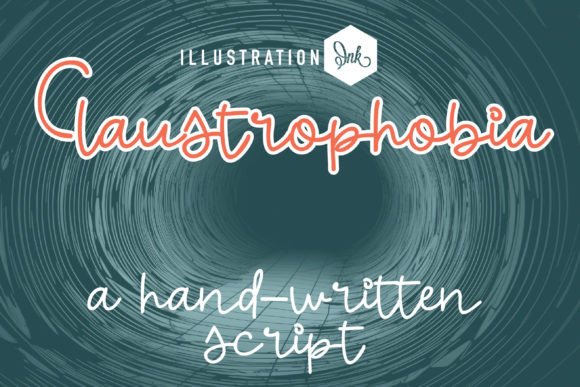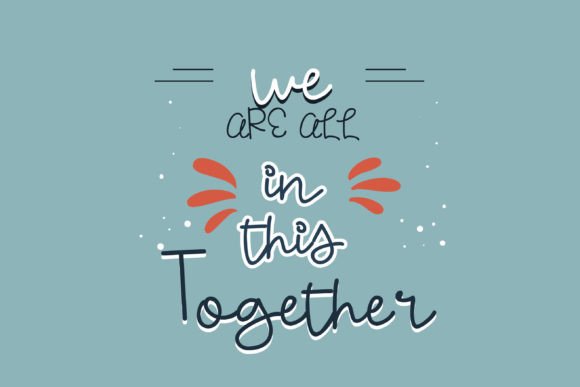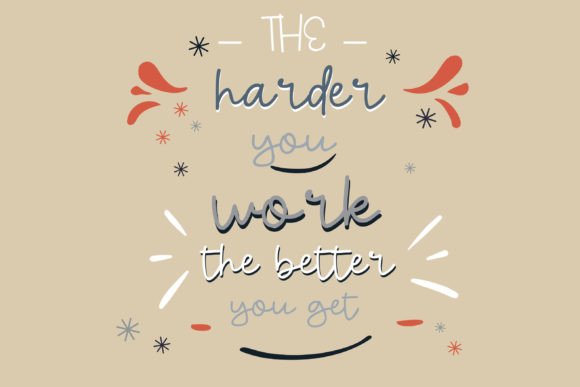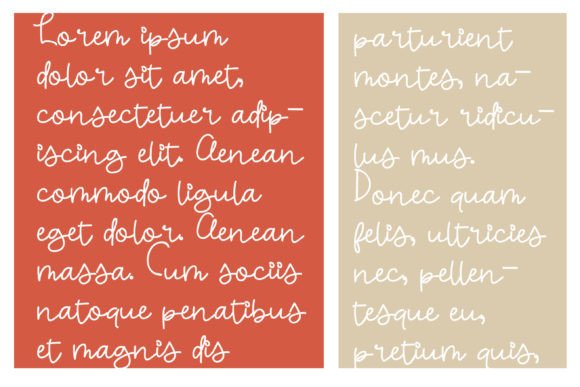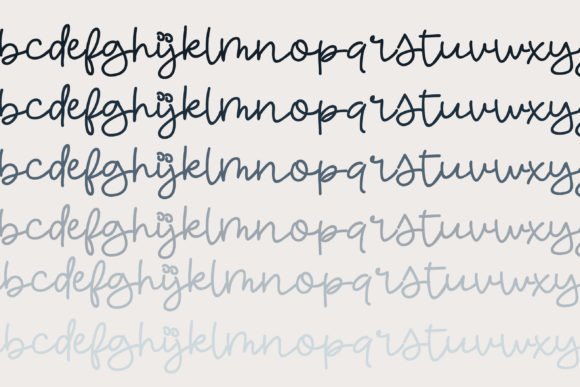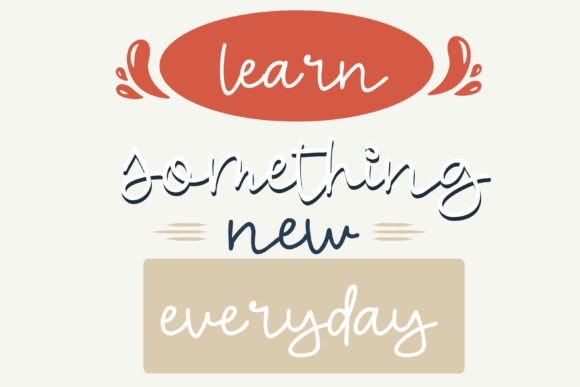
Introduction to Claustrophobia Font
Have you ever been stuck in a creative rut, searching for that perfect design element to elevate your project? I know I have. And that’s exactly what happened when I stumbled upon the Claustrophobia Font. Its unique, hand-written script instantly captured my attention, and I couldn’t wait to share it with fellow designers.
The Claustrophobia Font is more than just a design resource – it’s a versatile tool that can add a customized touch to any project. From wedding invitations to logos, its high-quality, transparent background makes it perfect for a wide range of creative projects. And the best part? It’s available for free download, making it an invaluable asset for designers on a budget.
Key Features of Claustrophobia Font
- Unique, hand-drawn design perfect for creative projects that require a touch of elegance and sophistication.
- Perfect for use in creative projects such as invitations, greeting cards, and other paper crafts, where a touch of whimsy and personality is desired.
- Unique characteristics include intricate details, subtle texture, and a sense of depth, making it stand out from more traditional fonts.
Honest Review: Claustrophobia Font
I recently came across the Claustrophobia Font and I have to say, I was impressed. As a designer, I’m always on the lookout for high quality design resources that can elevate my creative projects. This font is definitely one of them.
One of the things that stood out to me was the transparent background option. This is perfect for designers who want to create a seamless design experience. It’s also great for adding a touch of elegance to your design.
Here are some of the things that work well with the Claustrophobia Font:
- ✨ High quality design that’s perfect for creative projects
- ✨ Transparent background option for seamless design
- ⚠️ Limited customization options
- ⚠️ May not be suitable for large-scale designs
Overall, I was impressed with the Claustrophobia Font. It’s a great design resource for designers who want to add a touch of elegance to their projects. While it may have some limitations, it’s definitely worth considering for your next creative project.
Common Use Cases for the Claustrophobia Font
The Claustrophobia Font is commonly used in creative projects, such as branding, marketing materials, and editorial designs. It is also used in digital design contexts, such as website design and social media graphics. The font’s unique style and high-quality design make it an ideal choice for designers looking to add a touch of sophistication to their work.